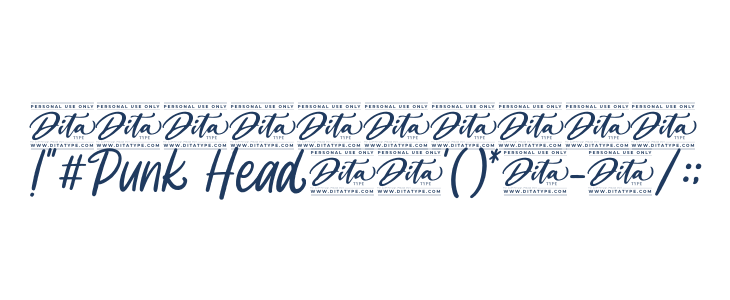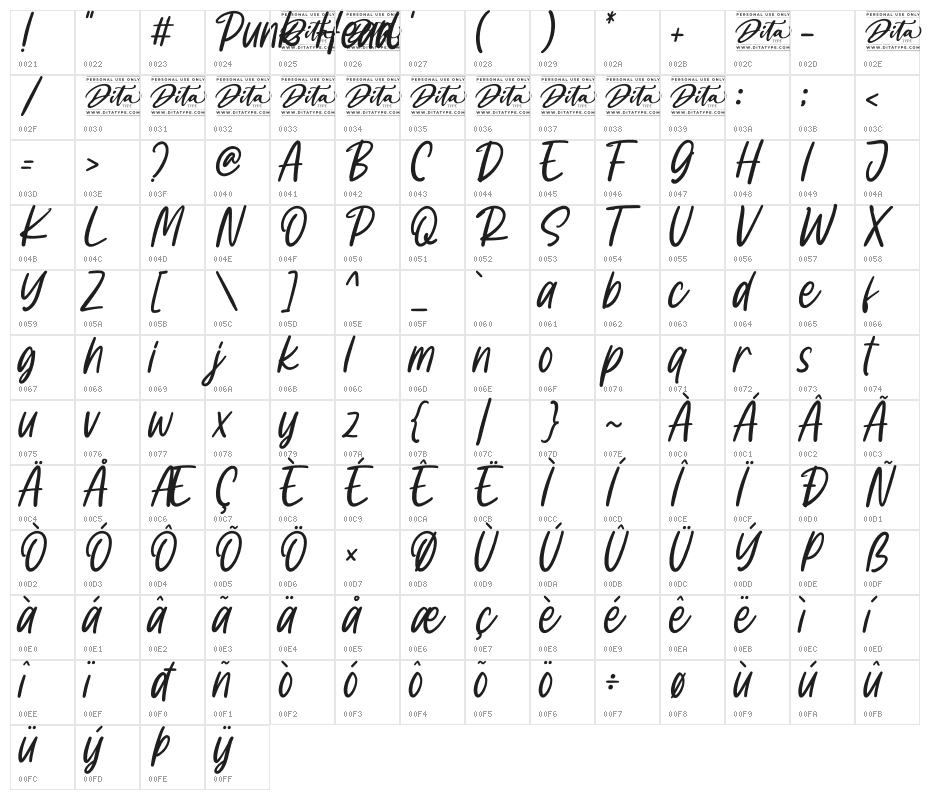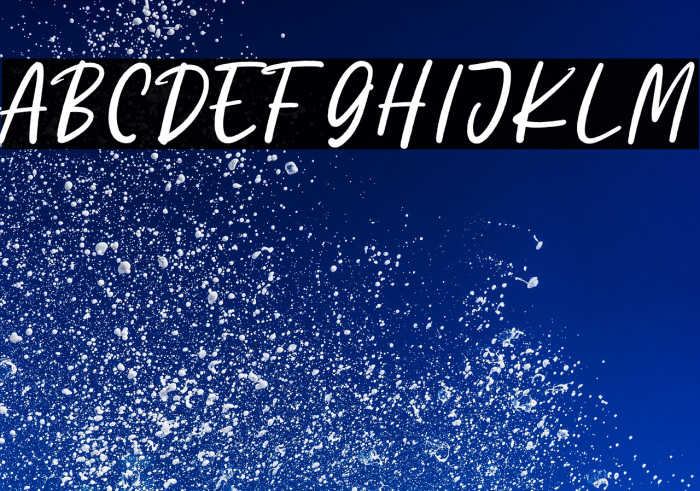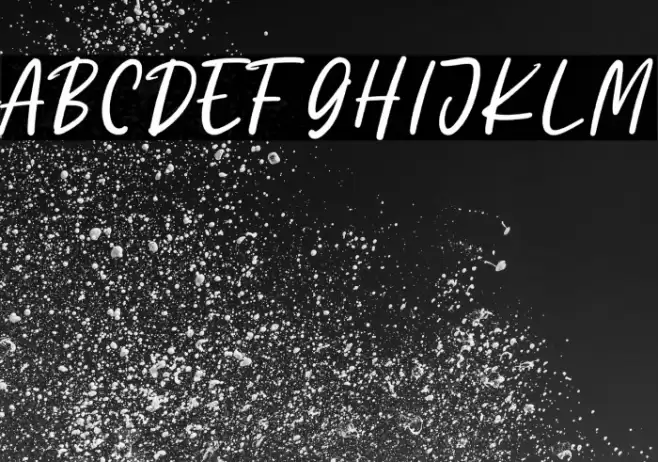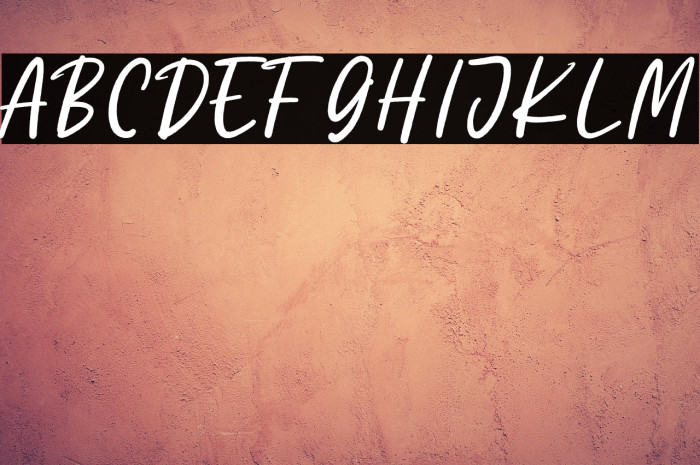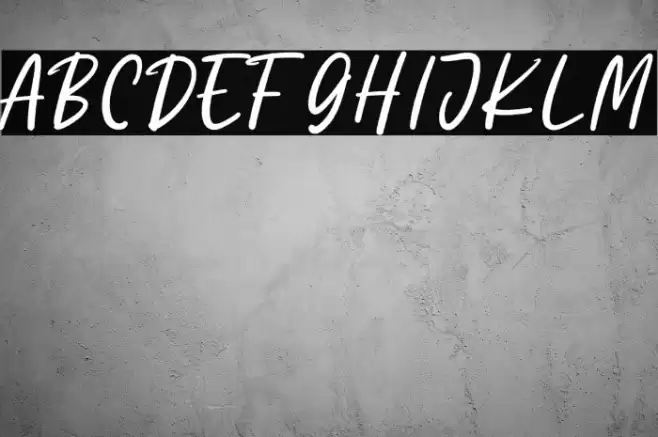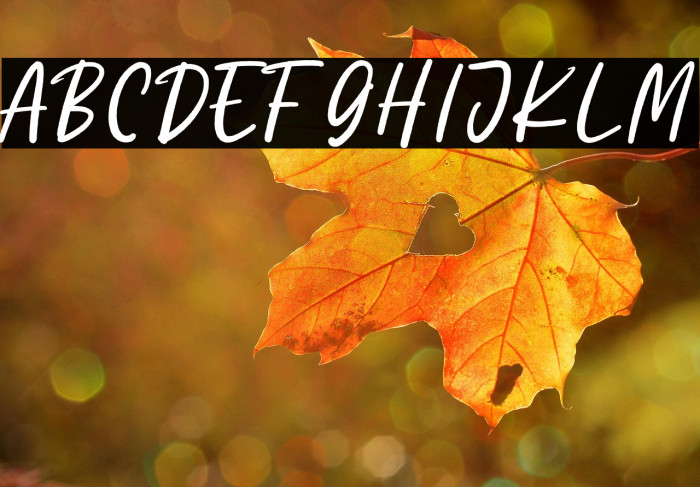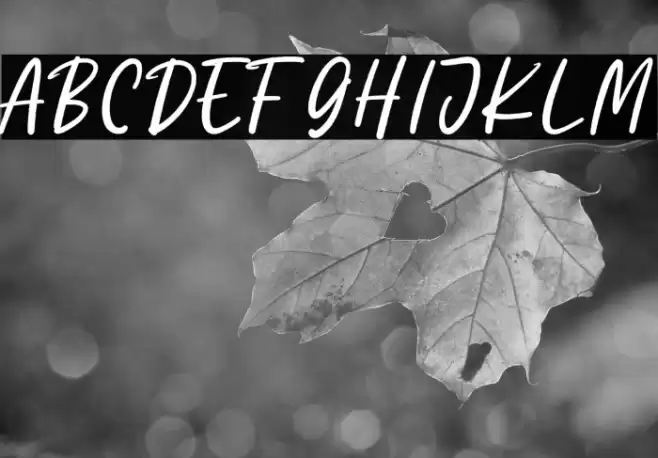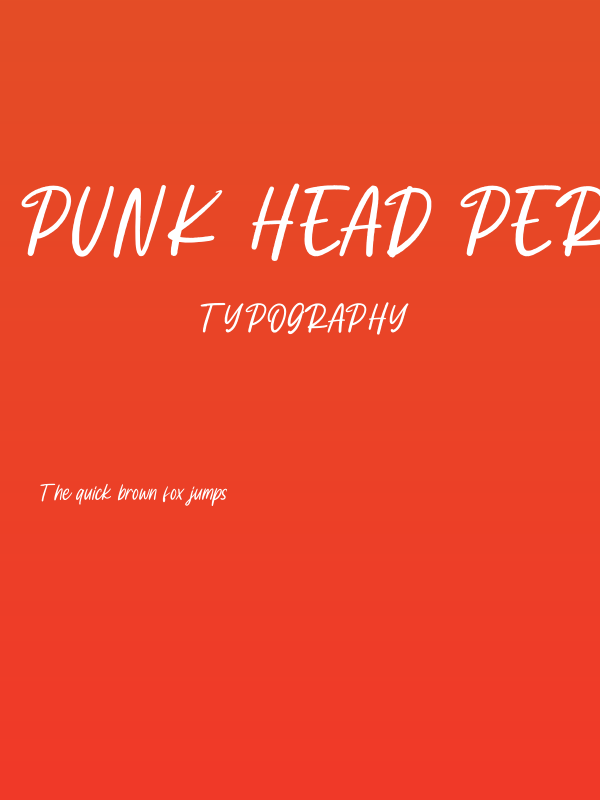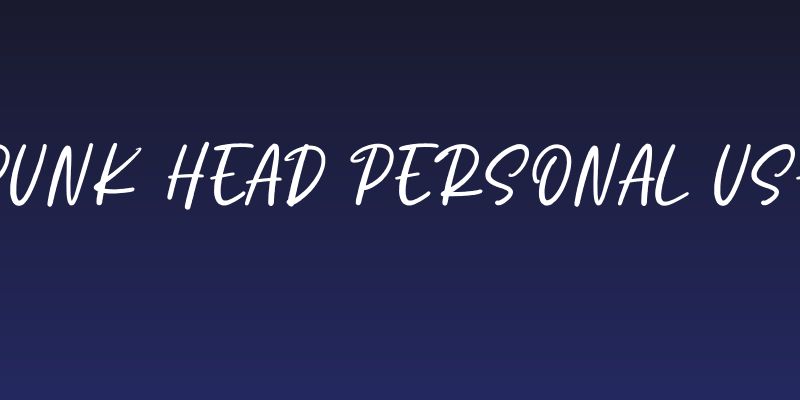
Punk Head Personal Use Font
Punk Head Personal Use Description
This font exhibits a bold, handwritten style with a dynamic and energetic flow. The uppercase and lowercase letters are crafted with a consistent slant, giving a sense of movement and spontaneity. The strokes are thick and confident, providing a strong visual impact. The characters are slightly condensed, enhancing the compact and cohesive appearance. The font maintains a medium contrast in stroke thickness, which adds to its legibility while preserving its artistic flair. The overall style is modern and expressive, making it suitable for creative and informal applications.